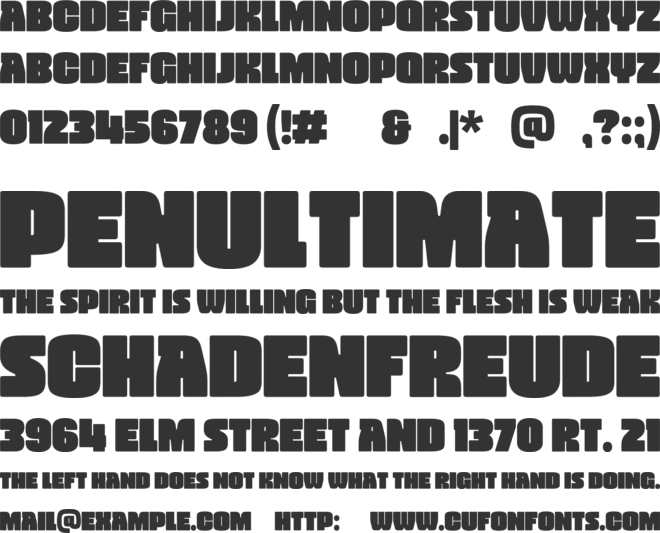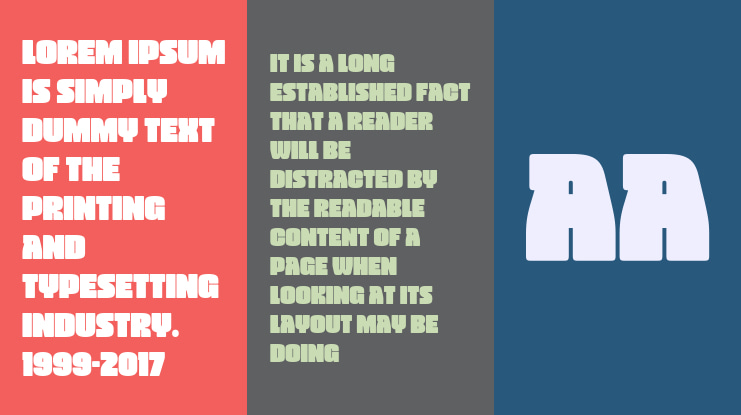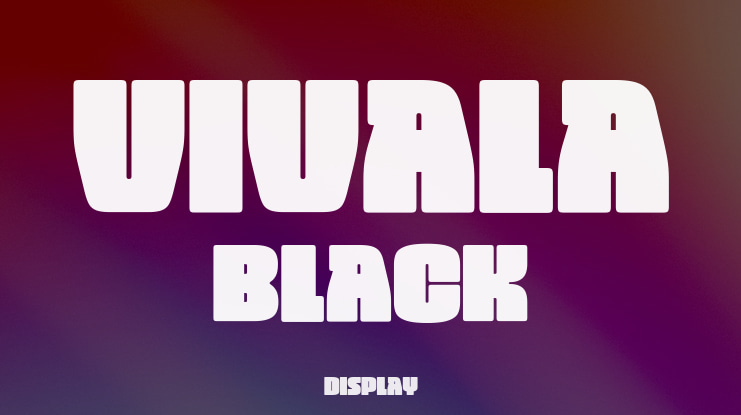
Vivala Black Font
Vivala Black FreeThis font is for personal use only and no commercial use is allowed.Vivala Black is a font that commands attention. Crafted with a high black-to-white ratio, it is built to fill space and create a powerful, compact style. Whether you're designing for a striking magazine cover, an eye-catching poster, or elegant book pages, Vivala Black provides the depth and intensity you need. Its gives you the freedom to fine-tune your design and add unique character to your work.Download includes: Vivala Black BoldCommercial licenses For commercial use, you can buy the Vivala Black font here: https://www.vivalatype.comFor any further questions, please contact us here: https://www.vivalatype.com/contact/